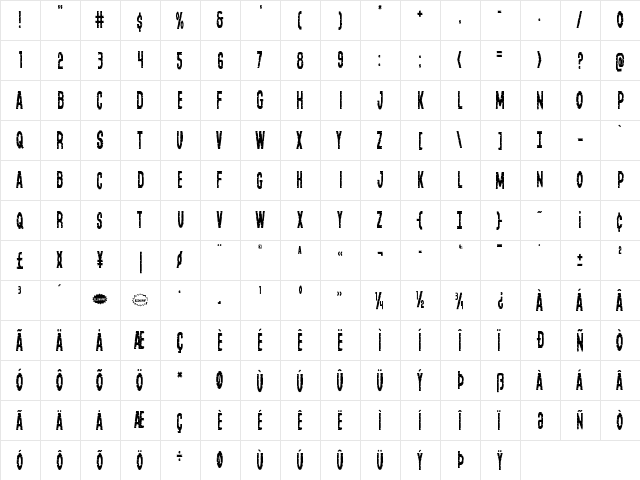
Yummy Mummy Condensed Condensed
Design Context for Yummy Mummy Condensed Typeface
Yummy Mummy Condensed takes a measured approach to typography — its balanced proportions and neutral character make it a reliable workhorse for both digital and print work. The condensed width makes it efficient for tight spaces without sacrificing legibility.
Pro Tip: Pair Yummy Mummy Condensed with a font of contrasting weight or personality to build a more expressive typographic hierarchy.